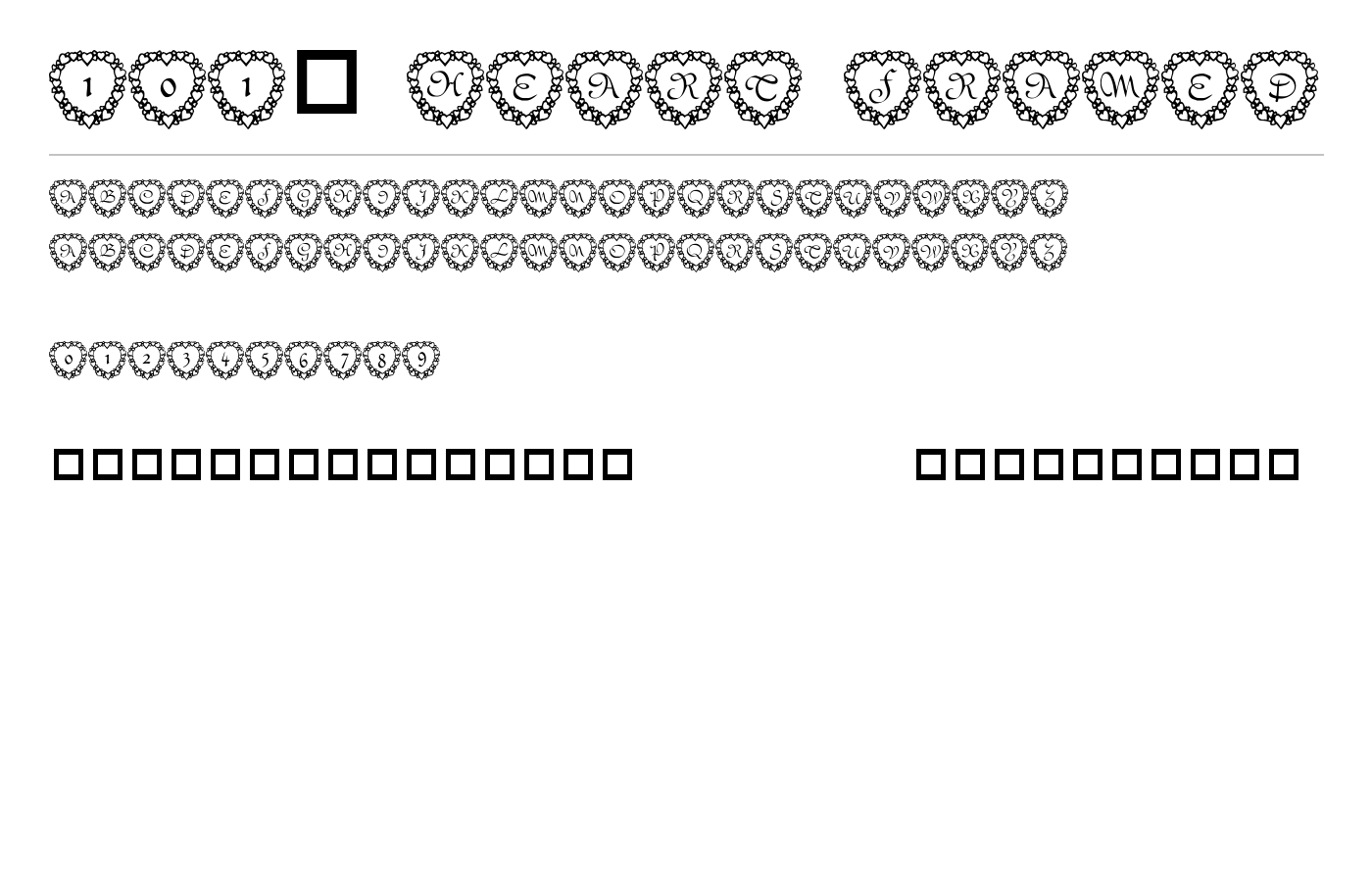
101! Heart Framed Font is a charming decorative typeface featuring whimsical uppercase letters and numbers each enclosed within a delicate heart-shaped frame formed by tiny hearts. This playful and romantic font is perfect for designs related to love, celebrations, or youthful themes, adding a sweet and elegant touch to invitations, greeting cards, or festive branding. Its unique heart-framed style makes it ideal for eye-catching headlines and decorative accents rather than body text.
101! Heart Framed Font
About 101! Heart Framed Font